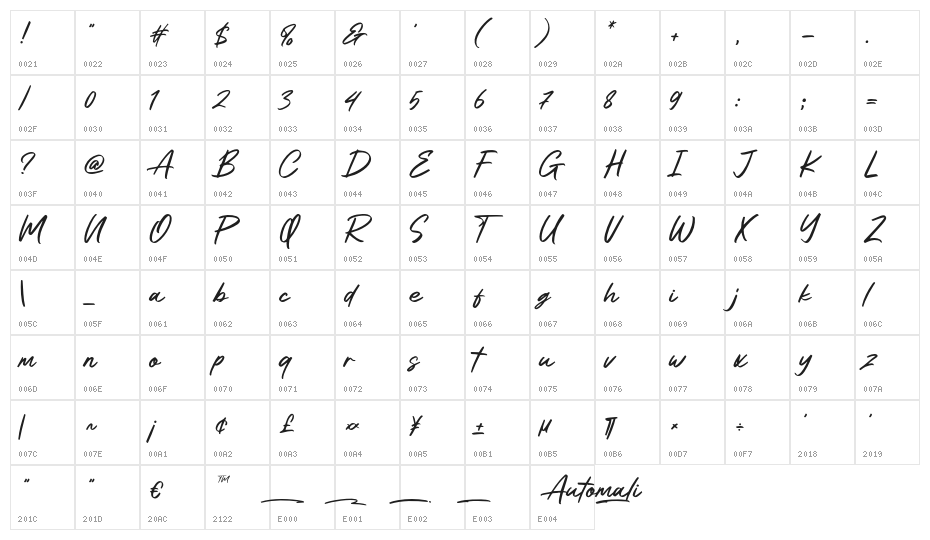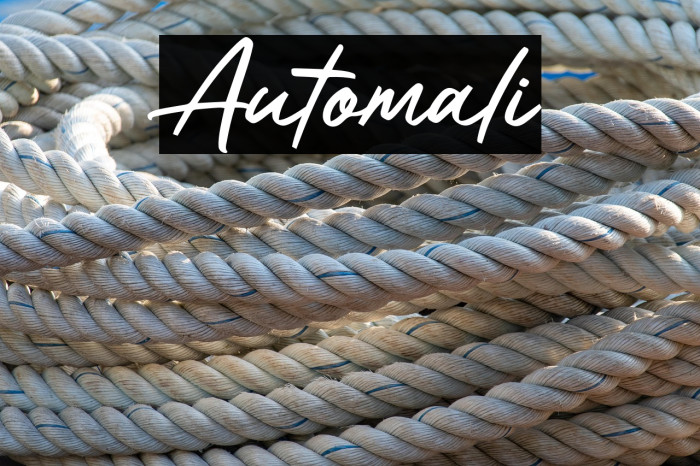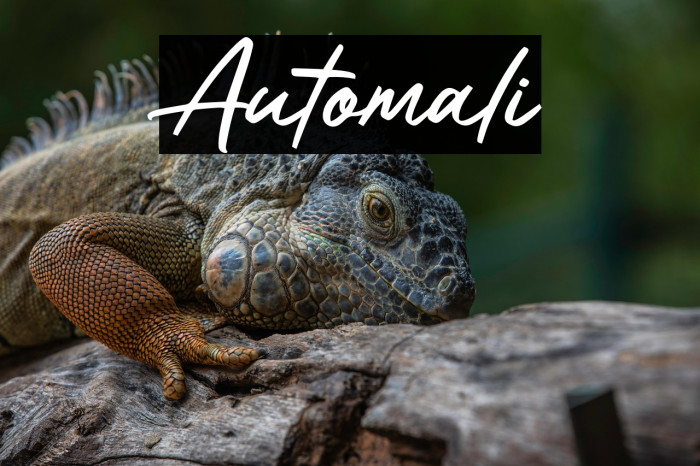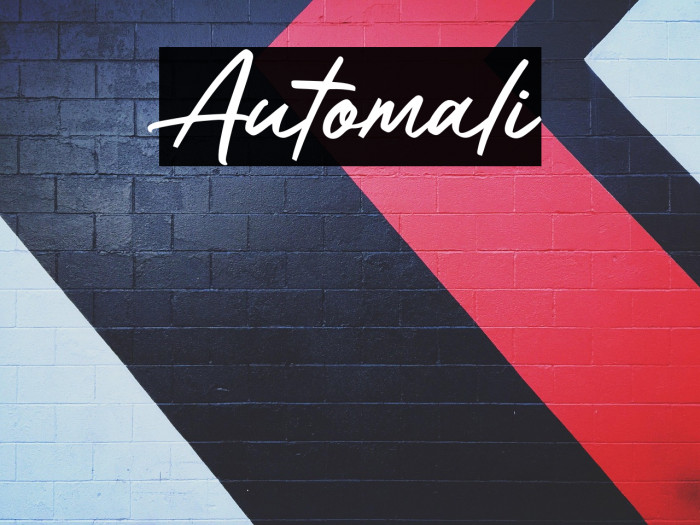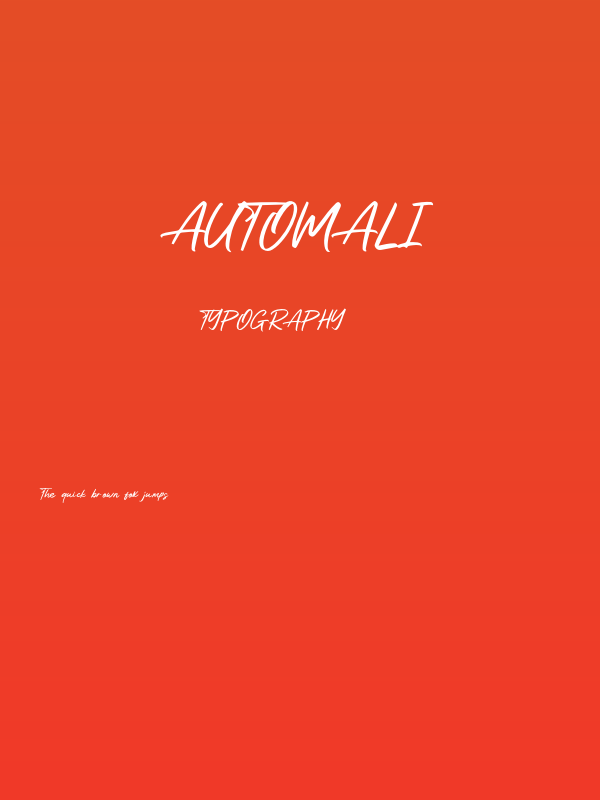
Automali Font
Automali Description
This font exudes a dynamic and energetic feel, characterized by its fluid and cursive script style. The letters are elegantly connected, giving it a handwritten appearance that is both casual and sophisticated. The strokes vary in thickness, adding a natural and organic touch to the text. The uppercase letters are bold and prominent, while the lowercase letters maintain a consistent flow. Numbers and special characters are seamlessly integrated, maintaining the overall aesthetic. This font is perfect for adding a personal touch to any design project.
| Use Case | Logos, Headlines, Invitations |
| Proposed Projects | Ideal for wedding invitations, greeting cards, personal branding, and creative projects that require a personal touch. |